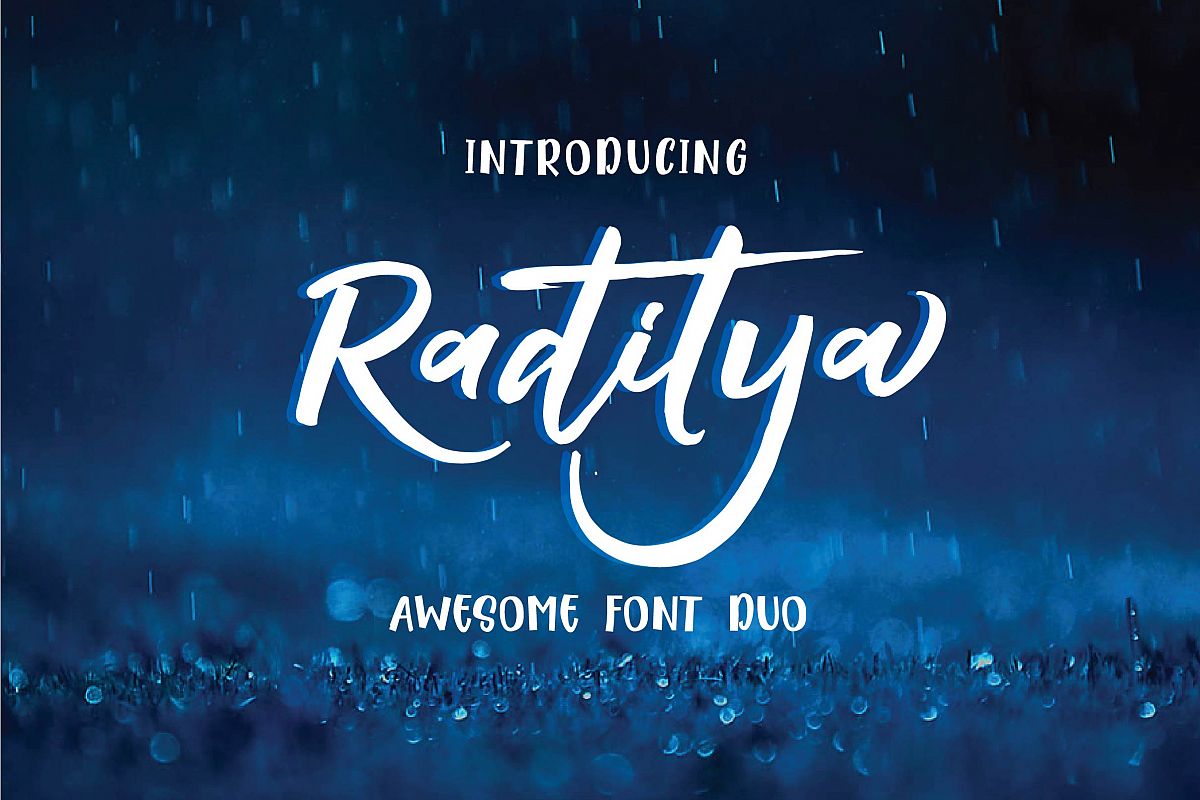
RADITYA Hand lettering
hi Friends......Welcome januaryRaditya is a beautiful hand lettering, It suitable for Signature, greeting cards, T-Shirt, Logo, Branding or any design that you create.comes with a complete set of standard characters, Alternates, Punctuation & international glyphsFeatures
• UPPERCASE
• lowercase
• numeral
• punctuation
• international glyphs
• Alternates Glyphs